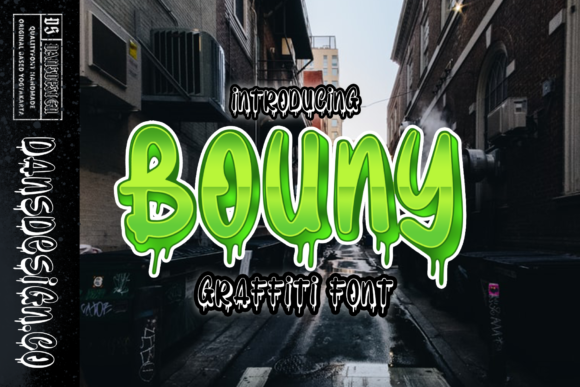
Unleash Your Creativity with the Bouny Font
You know that moment when you’re brainstorming ideas for your next design project and you’re stuck? You’ve got a vision in your head, but you can’t quite put it into words. That’s when you need a font that’s bold, edgy, and can add some serious attitude to your design. That’s exactly what you get with the Bouny Font.
This modern graffiti-styled display font is the perfect addition to any designer’s library. With its cool flair and urban style, the Bouny Font is sure to make your designs stand out from the crowd. Whether you’re working on a logo, a poster, or a social media graphic, this font is the perfect way to add some personality and style to your work. By incorporating the Bouny Font into your designs, you’ll be able to take your creativity to the next level and make a lasting impression on your audience.
Bouny Font Key Features
- Unique Characteristics: Bouny Font features a playful, handwritten style with unique letterforms and flourishes, making it perfect for adding a touch of personality to designs and documents.
Bouny Font Review
As a designer, I was excited to dive into the Bouny Font, a font family designed to evoke a sense of playfulness and whimsy. Here’s my honest review:
- The Bouny Font is incredibly versatile, suitable for a wide range of applications, from children’s books to advertising and branding materials.
- The font family includes a variety of weights and styles, making it easy to customize and adapt to different design needs.
- The playful, handwritten feel of the font adds a touch of personality to any design project.
- The font’s irregularities can sometimes make it difficult to read, particularly in large blocks of text.
- The lack of a clear, consistent design language can make it challenging to maintain consistency across different weights and styles.
- The font may not be the best choice for formal or professional applications, where a more traditional font is preferred.
The Bouny Font is a fun and creative option for designers looking to add a touch of whimsy to their projects. While it may not be the best choice for every application, it’s a great addition to any designer’s toolkit. With some careful consideration and planning, the Bouny Font can add a unique and engaging element to any design project.
Tips for Getting the Most Out of Bouny Font
To get the most out of Bouny Font, experiment with different font sizes, colors, and styles to create a unique look. Use it for titles, headings, and body text to add visual interest to your designs.
Bouny Font is perfect for:
- Wedding and event signage
Alternatives to “Bouny Font” for Designers
Playfair Display is an elegant and luxurious serif font, perfect for creating high-end designs such as luxury branding, invitations, and editorial content. Its intricate details and flourishes make it stand out in any design. Compared to Bouny Font, Playfair Display has a more classic and sophisticated feel, whereas Bouny Font is more playful and whimsical.
Cormorant Garamond
Cormorant Garamond is a modern take on the classic Garamond font, offering a balanced mix of elegance and readability. It’s ideal for use in body text, headings, and titles, and can be used in a variety of design contexts. Compared to Bouny Font, Cormorant Garamond has a more subtle and refined feel, whereas Bouny Font is more attention-grabbing and playful.